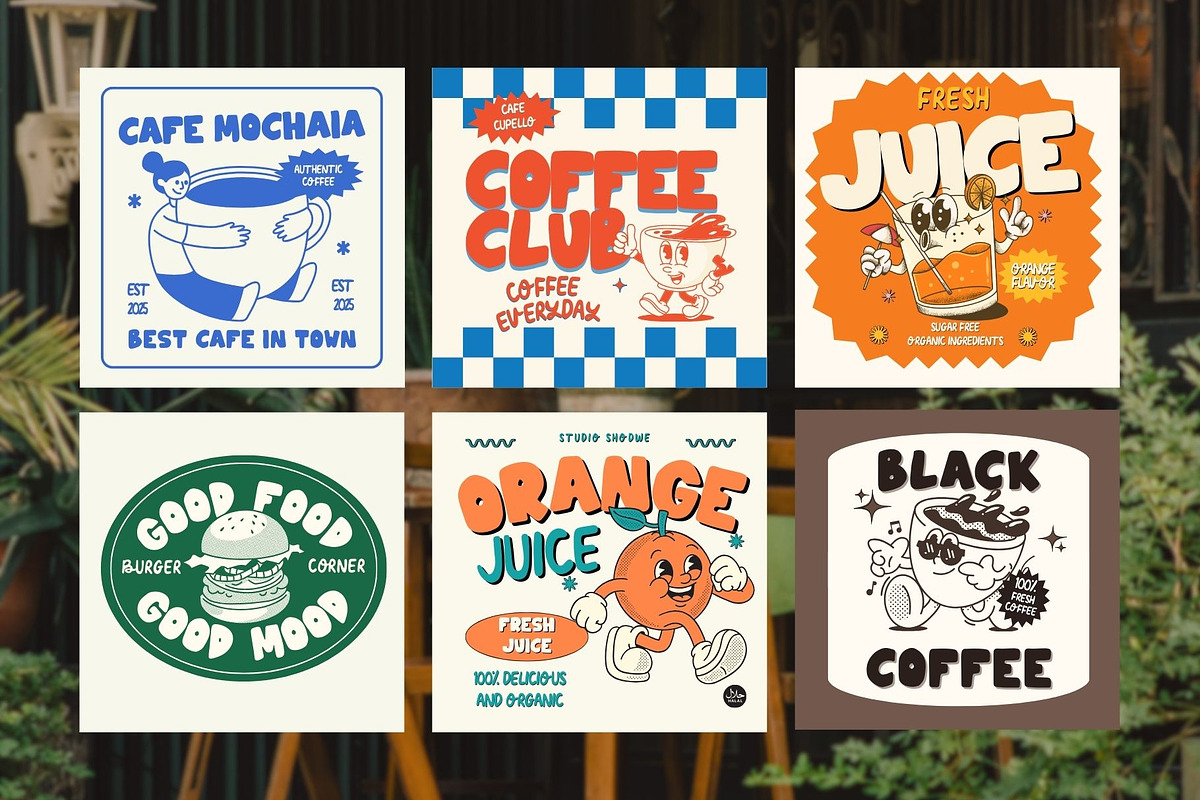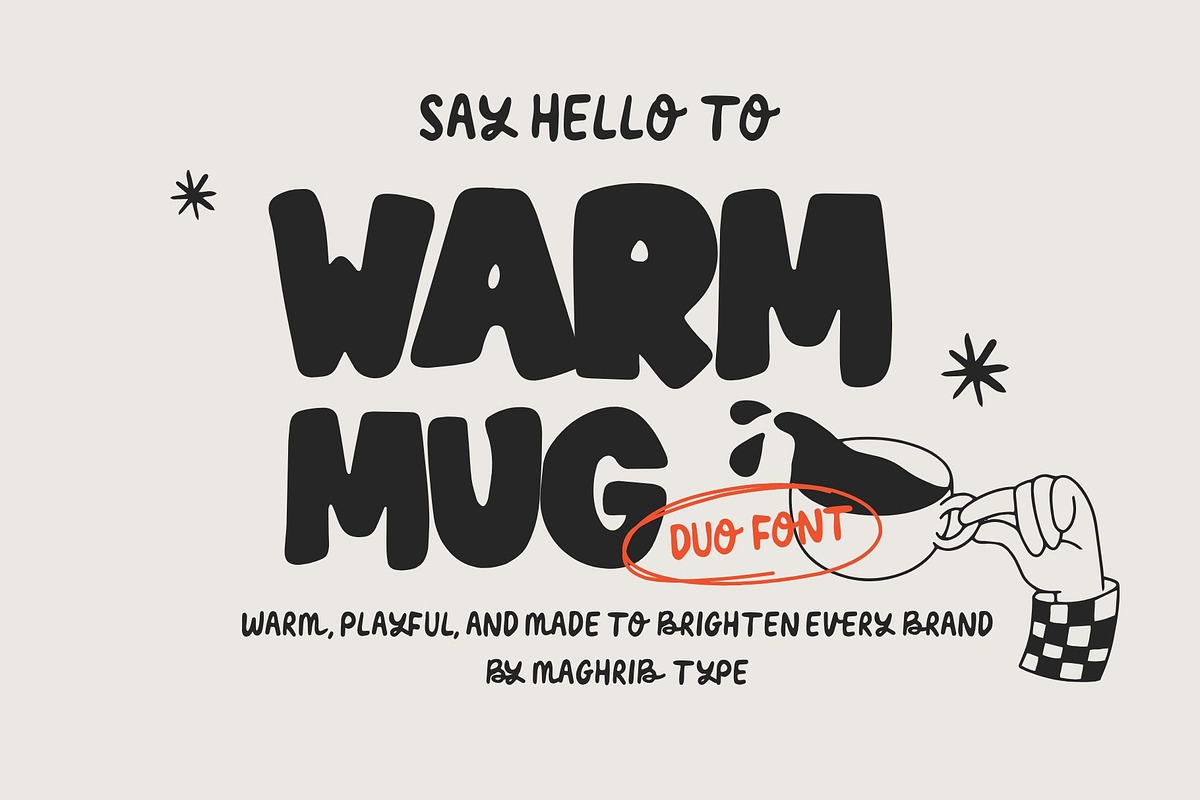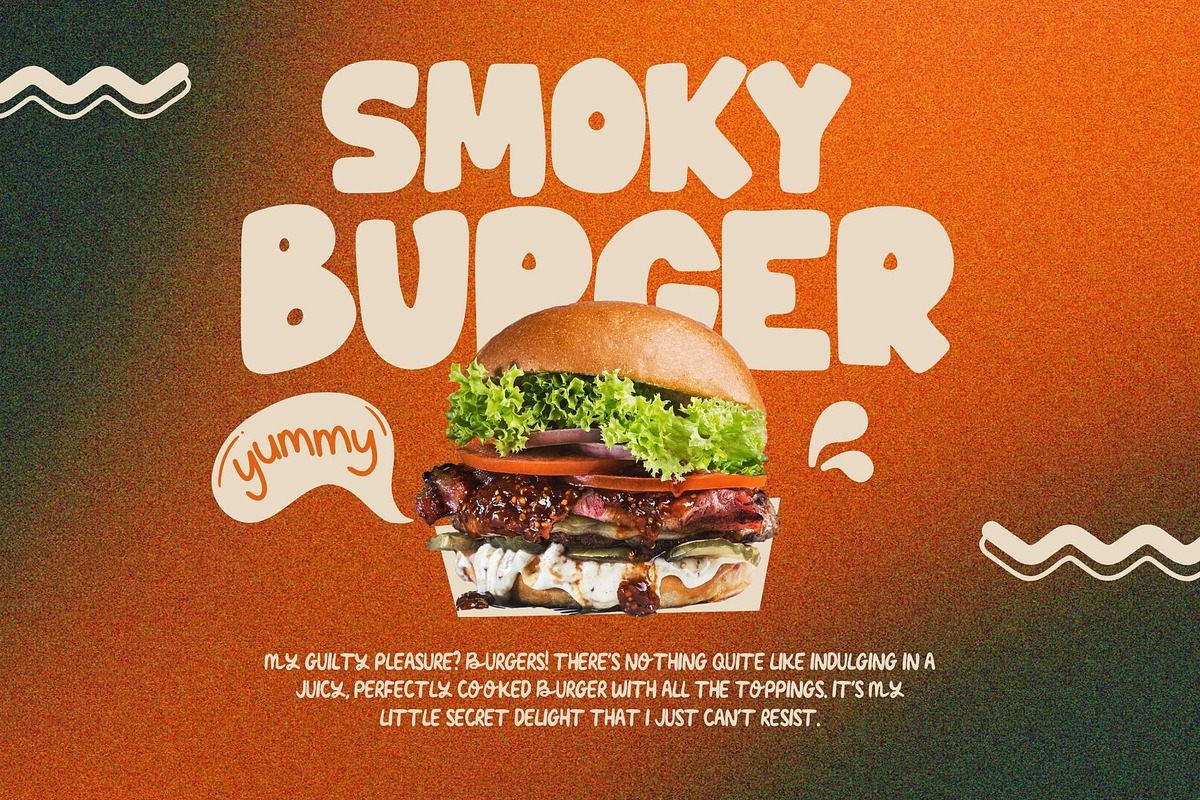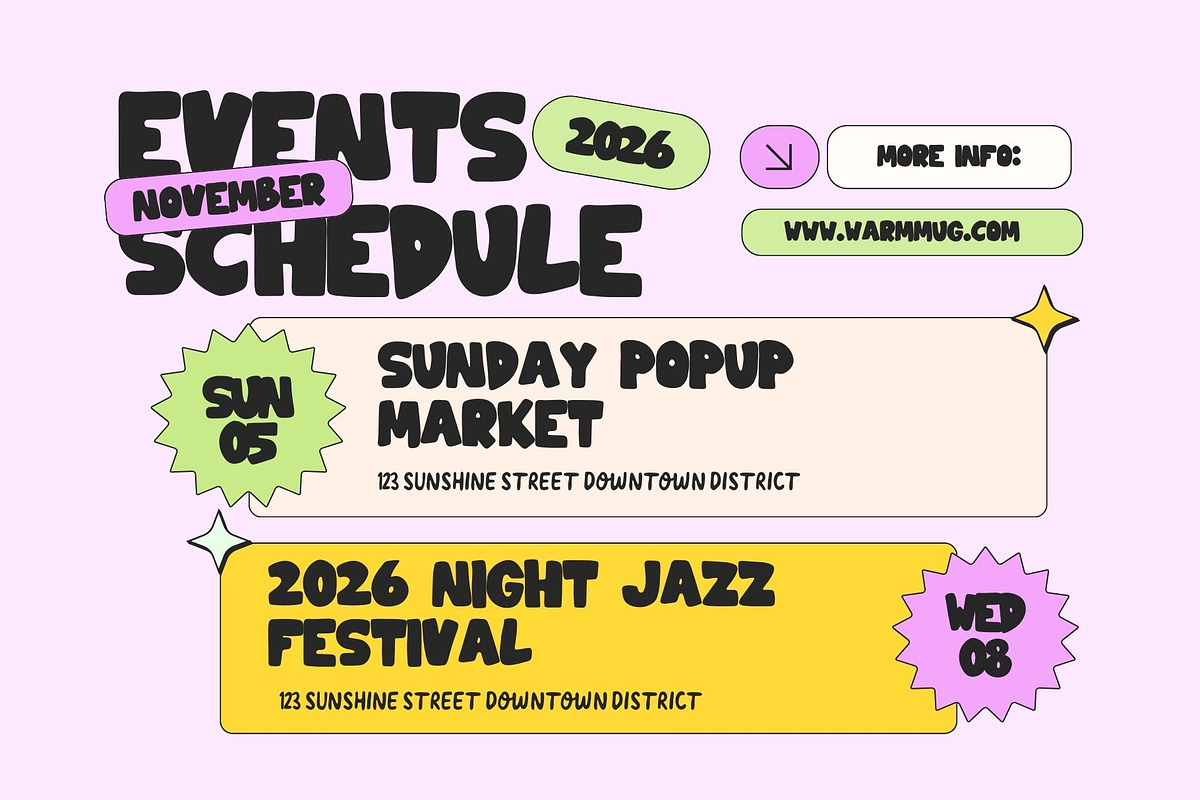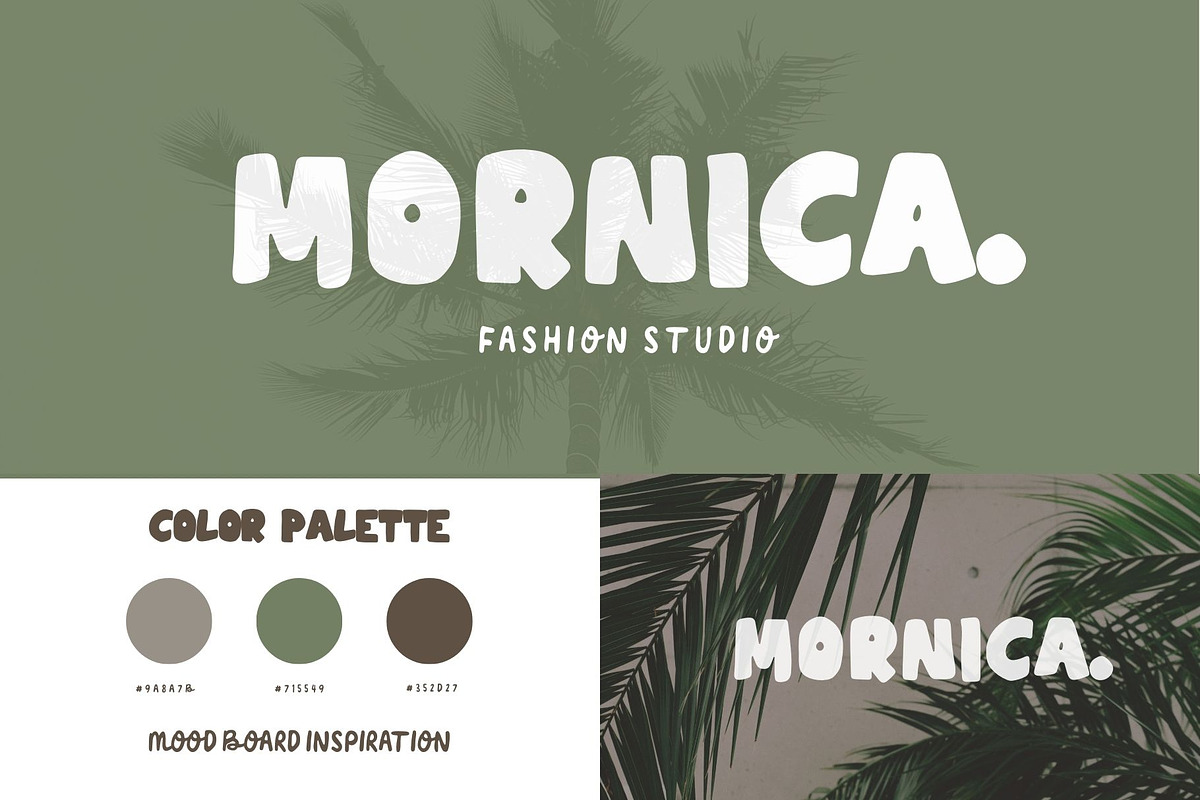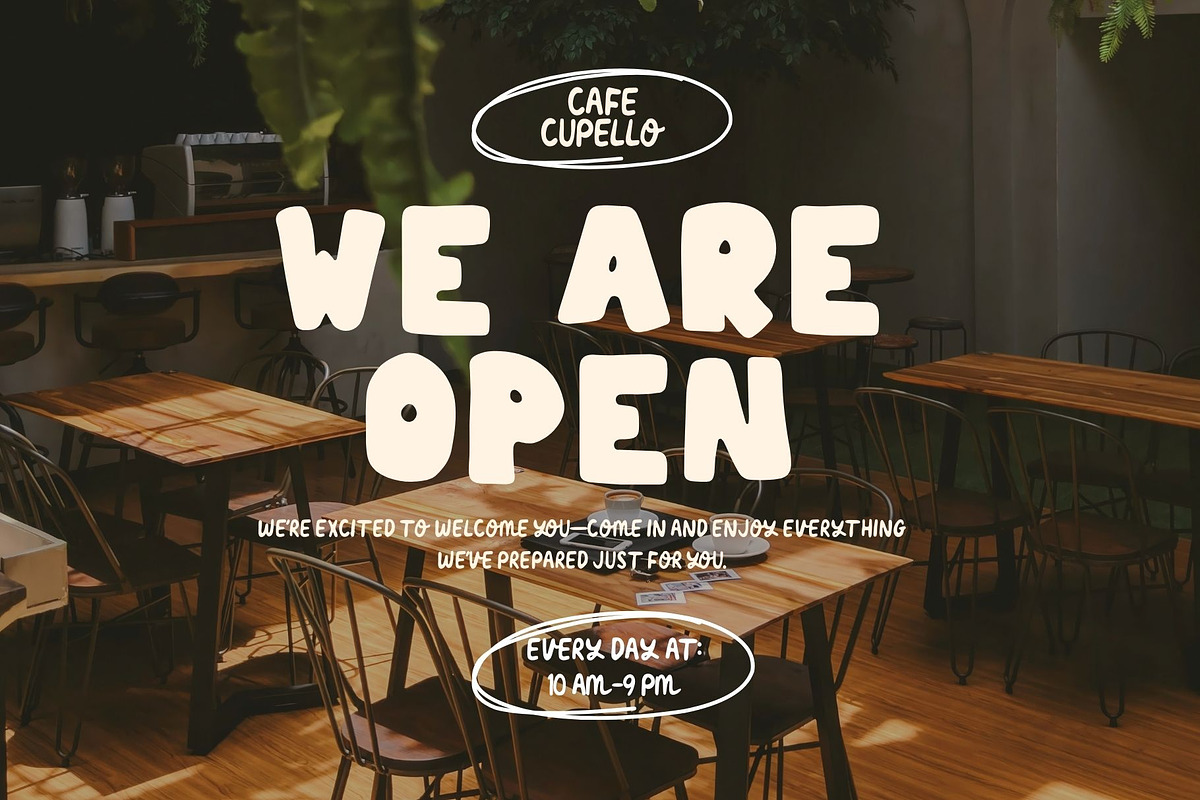
Warm Mug
Warm Mug is a playful handdrawn duo font designed to bring warmth, personality, and charm into your designs. Inspired by cozy coffee shops, sunny summer days, and cheerful branding visuals, this font delivers a fun yet stylish look with organic, rounded letterforms.
This font comes in two styles:
Bold – Thick, expressive, and eye-catching. Perfect for headlines, logos, posters, packaging, and bold branding statements.
Thin – Light, clean, and flexible. Great for taglines, subheadings, supporting text, and creative layout combinations.
The handcrafted feel gives every letter a friendly and approachable personality, making your design feel more authentic and lively. Whether you're creating branding for a coffee shop or designing a summer-themed poster, Warm Mug helps your visuals stand out with a natural and joyful touch.
Perfect For: Coffee shop & cafe branding Summer posters & menus Food & beverage packaging Juice and organic product labels Social media graphics Merchandise, stickers & apparel Retro and playful brand identities
With its warm character and fun aesthetic, Warm Mug is made to brighten every brand.